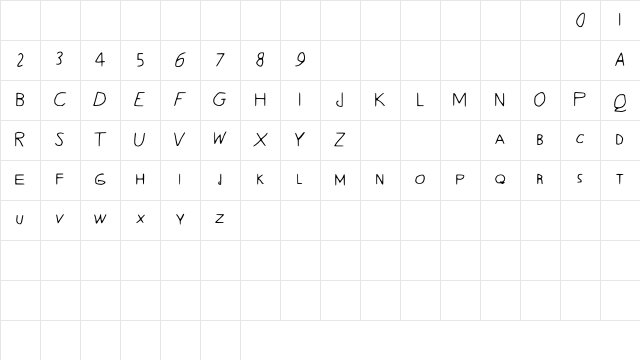
Quentrell Medium Free Font
Quentrell Medium
Design Context for Quentrell
Quentrell is a composed and adaptable typeface that performs quietly and consistently across a wide range of design contexts.
Pro Tip: Use Quentrell in both headline and body roles to test its range before committing to a single application.